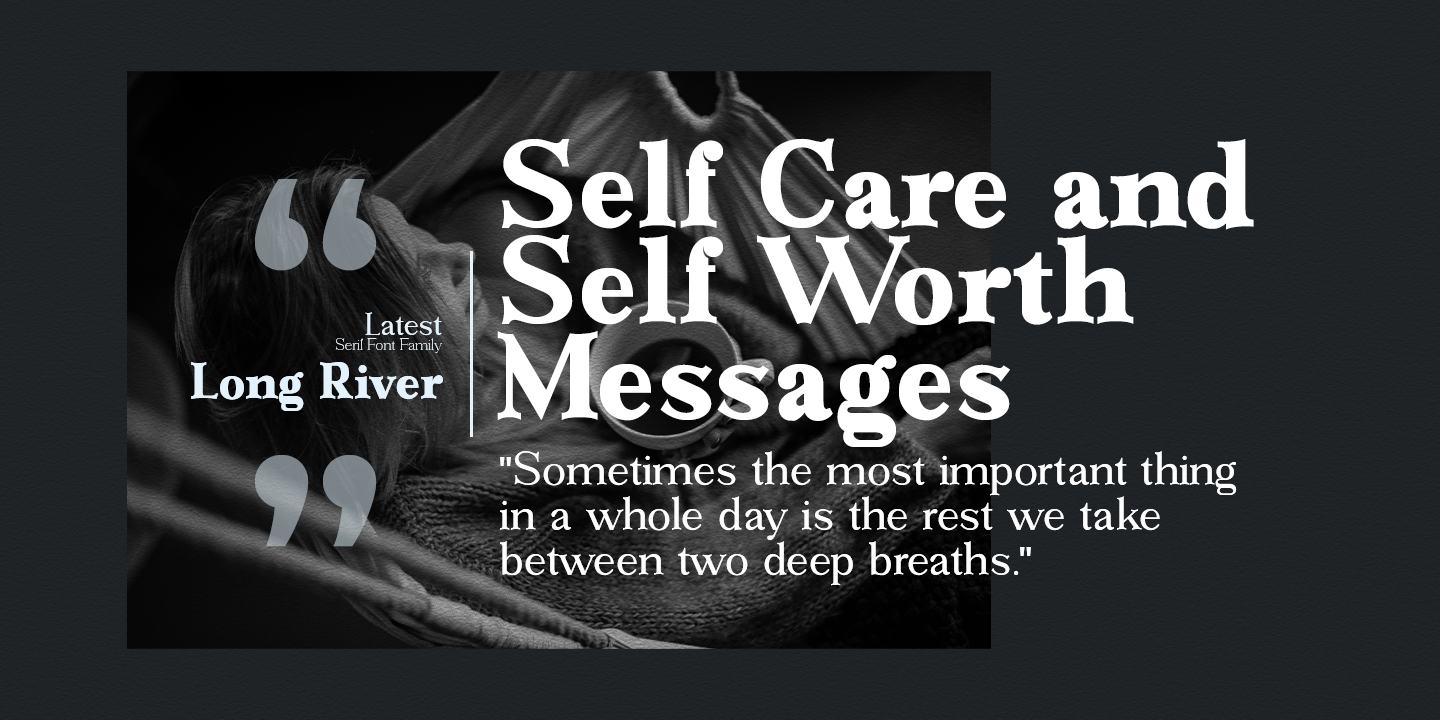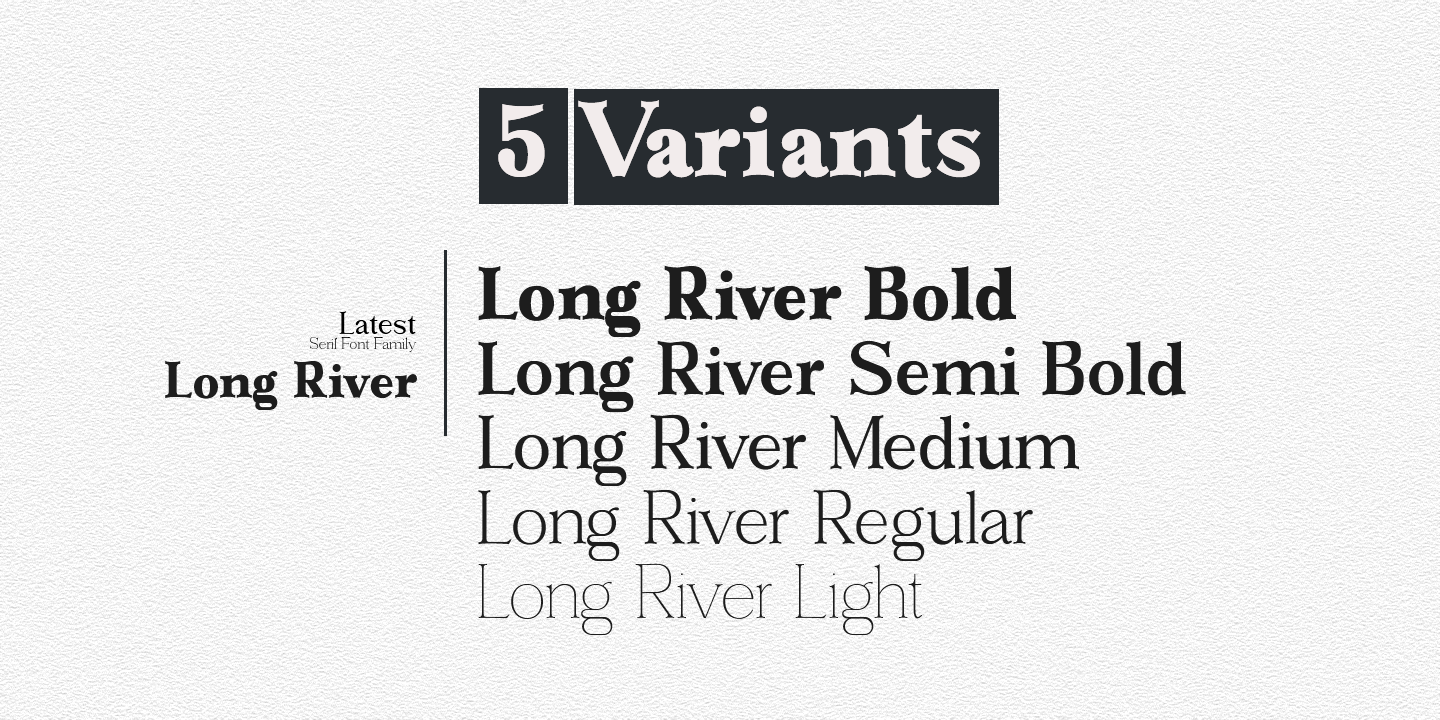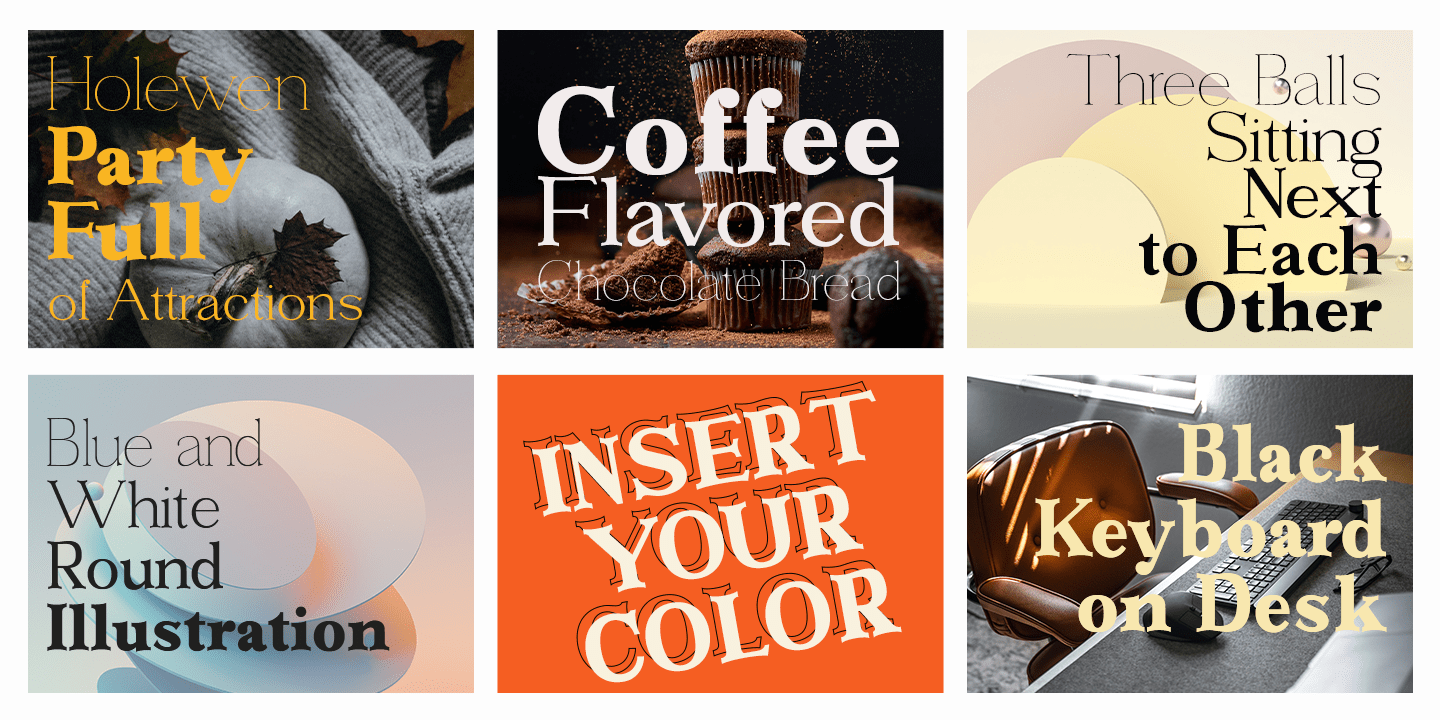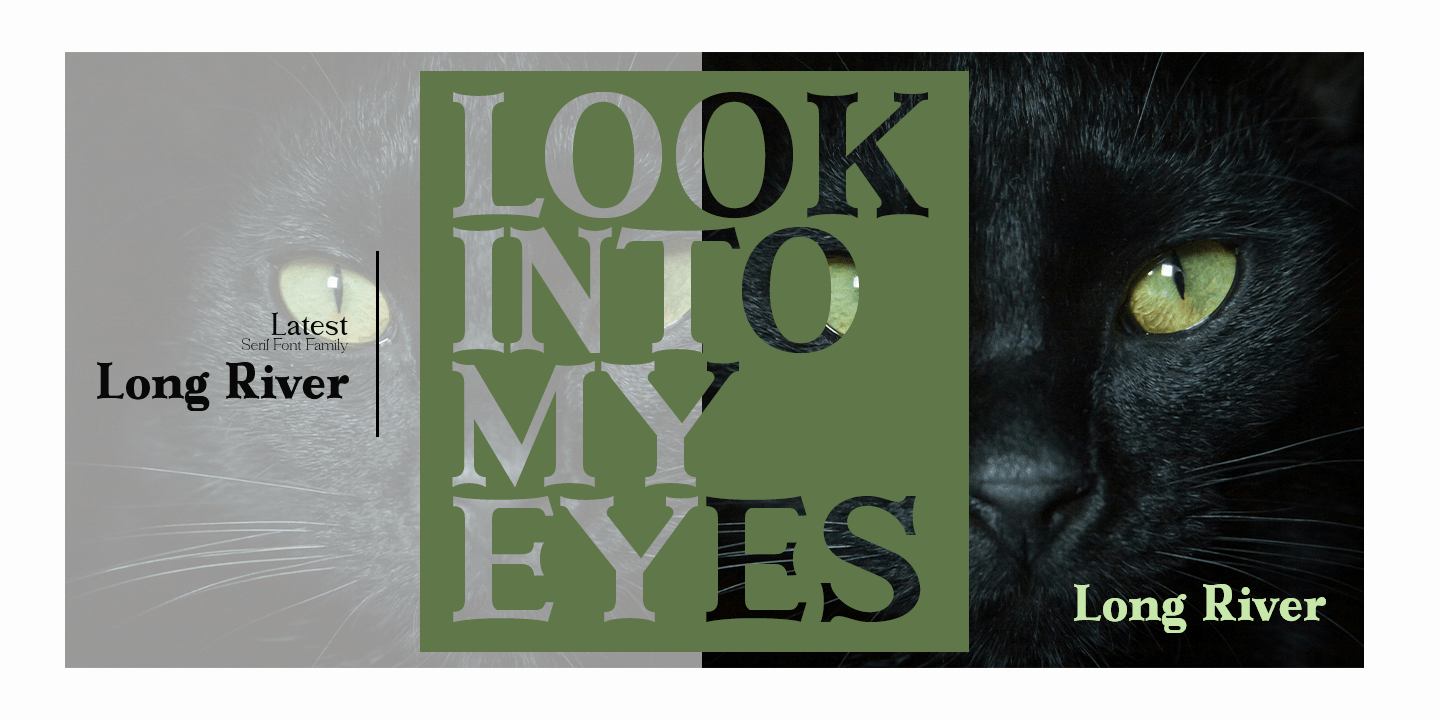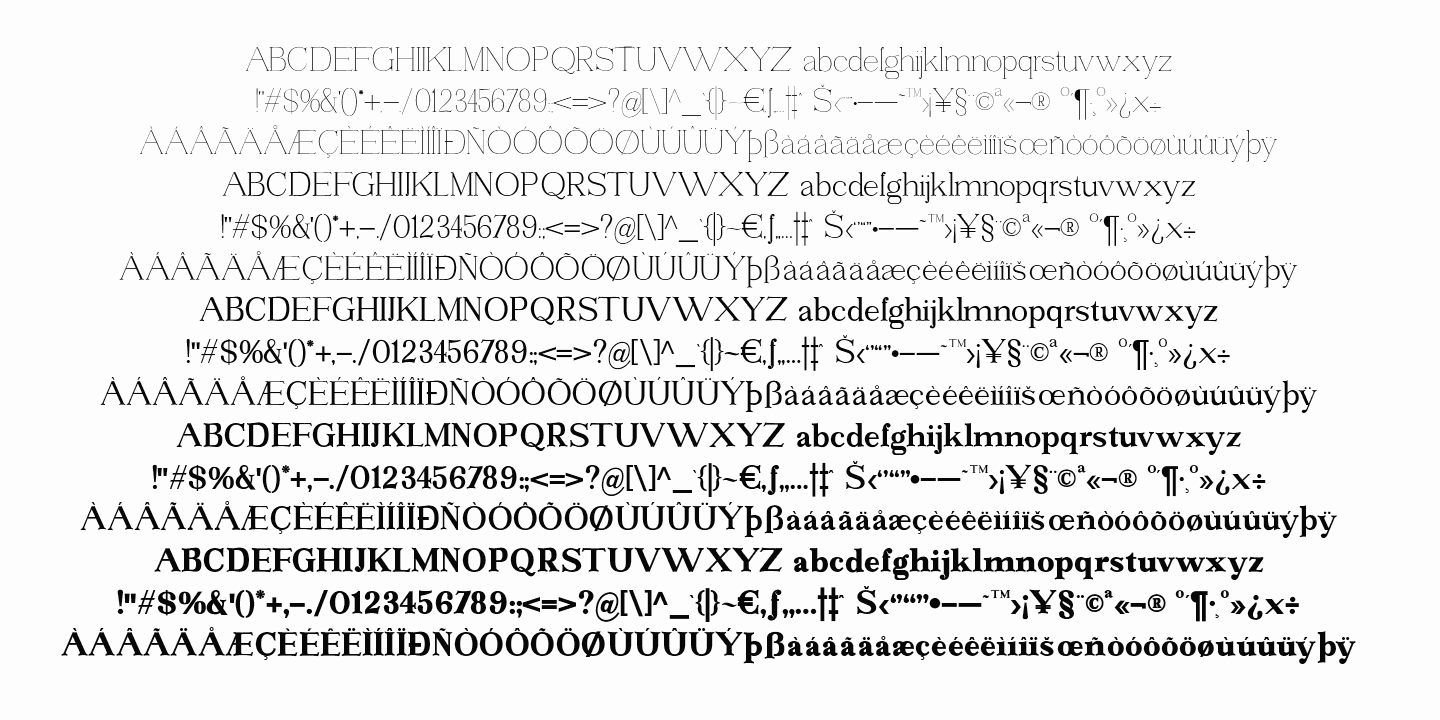
Long River
Long River is a Serif font family, which has a strong and bold character with 5 variants, Long River gives a clear and elegant look to logos, quotes, advertisements and more.
Long River is a versatile typography filled with the character you want with Long River you work .Long River has standard styles, Stylistic Alternates and ligatures. and includes upper and lower case letters, numbers and punctuation marks.
Long River works great in any branding, logos, magazines, films. The different weights give you full range to explore a whole host of applications, while the outlined fonts give a real modern feel to any project.OpenType features can be accessed by using OpenType smart programs such as Adobe Photo Shop, Adobe Illustrator, Adobe Indesign, Corel Draw and Microsoft Office. can also be accessed through the character map.